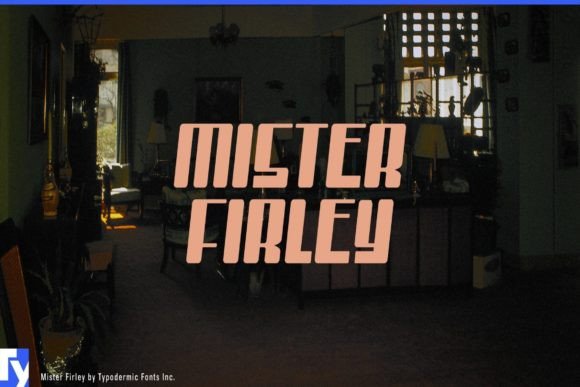
Are you ready to turn heads and make a lasting impression with your designs? Look no further than Mister Firley Font, the ultimate choice for those seeking to break the mold and leave a lasting impact. This masterpiece from the Freebies foundry is a bold and captivating display font that will elevate your creations to new heights.
Imagine your words dancing across the page with an industrial edge, demanding attention and igniting imaginations. Mister Firley Font is the perfect companion for any project that calls for a touch of boldness and a dash of intrigue. Unleash your creativity and watch as your designs transform into works of art that leave an unforgettable mark.
Whether you're crafting eye-catching headlines, designing impactful posters, or creating social media graphics that pack a punch, Mister Firley Font is your secret weapon. Its unique letterforms and assertive style will make your message stand out from the crowd, ensuring that your creations leave a lasting impression.
So, why settle for ordinary when you can embrace the extraordinary? Download Mister Firley Font today and embark on a creative journey that will redefine your designs. Let its industrial charm fuel your imagination and ignite a fire within your creations that will captivate and inspire. Embrace the power of Mister Firley Font and watch as your designs soar to new heights of brilliance.